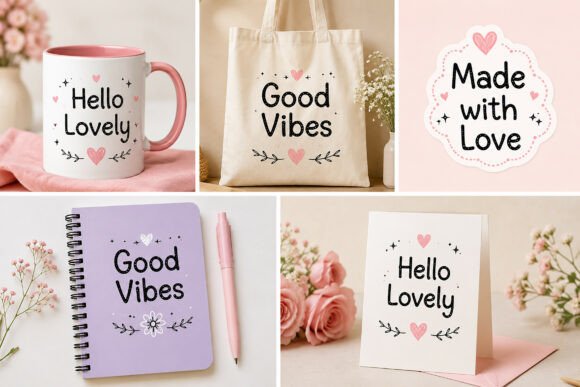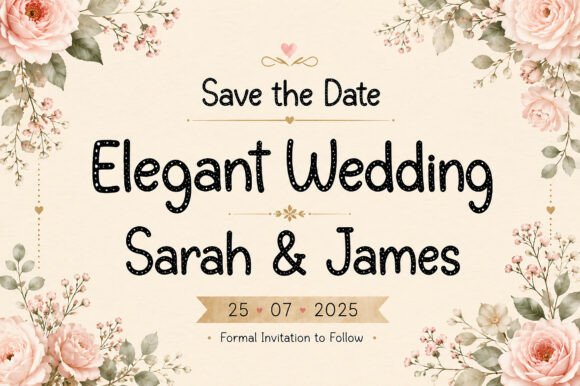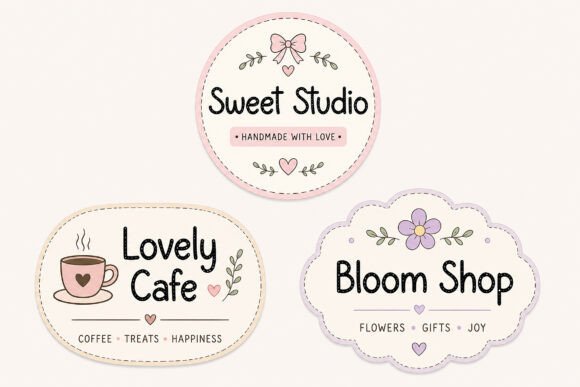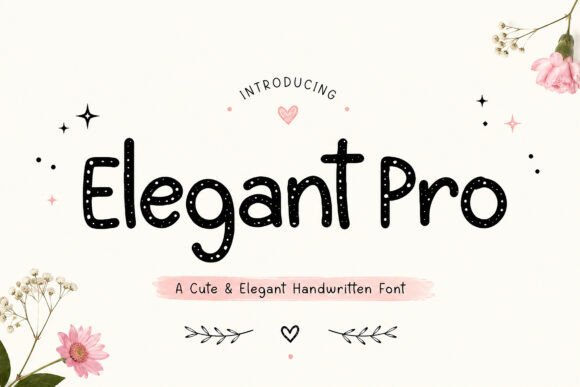
Elegant Pro Font: Elevate Your Designs with a Touch of Handwritten Charm
Are you looking for a font that can add a dash of personality to your creative projects? Look no further than Elegant Pro, a delightful handwritten display font that brings warmth, charm, and elegance to any design. With its smooth hand-drawn strokes, rounded letterforms, and unique decorative details, Elegant Pro is the perfect choice for designers and crafters seeking to create eye-catching and inviting visuals.
The Characteristics of Elegant Pro
Elegant Pro boasts a range of characteristics that make it an exceptional font for various creative applications. Its smooth hand-drawn strokes give the font a friendly and approachable feel, while its rounded letterforms add a touch of playfulness and whimsy. The unique decorative details sprinkled throughout the font add an extra layer of elegance and sophistication, making it perfect for designs that require a bit of luxury and refinement.
One of the standout features of Elegant Pro is its versatility. This font is suitable for a wide range of creative projects, from branding and logos to wedding invitations, greeting cards, and social media graphics. Whether you’re designing for a small business, creating beautiful invitations, or crafting eye-catching merchandise, Elegant Pro is the perfect choice. Its elegant and modern style makes it ideal for professional projects, while its playful and charming nature makes it perfect for personal projects.
Elegant Pro is a dream font for designers and crafters alike. Its readability and aesthetic appeal make it perfect for creating stunning visuals that capture the imagination. Designers can use Elegant Pro to create beautiful branding, logos, and marketing materials that stand out from the crowd. Crafters can use the font to create handmade products, such as stickers, stationery, children’s products, and boutique business materials, that are both unique and eye-catching.
Use Cases for Elegant Pro
Elegant Pro is perfect for a variety of creative projects, including:
- Branding and Logos: Create a lasting impression with Elegant Pro’s elegant and modern style.
- Wedding Invitations: Add a touch of romance and whimsy to your wedding invitations with Elegant Pro.
- Greeting Cards: Create beautiful and heartfelt greeting cards with Elegant Pro’s playful and charming nature.
- Social Media Graphics: Elevate your social media graphics with Elegant Pro’s smooth hand-drawn strokes and unique decorative details.
- Product Packaging: Add a touch of luxury and sophistication to your product packaging with Elegant Pro.
- Stickers and Stationery: Create eye-catching stickers and stationery with Elegant Pro’s playful and charming nature.
- Children’s Products: Design delightful children’s products, such as toys, books, and games, with Elegant Pro.
- Boutique Businesses: Create a unique and elegant brand identity for your boutique business with Elegant Pro.
- Handmade Craft Projects: Add a touch of handmade charm to your craft projects, such as jewelry, candles, and soap, with Elegant Pro.
Why Choose Elegant Pro?
So, why choose Elegant Pro over other fonts? Here are just a few reasons:
- Unique and Eye-Catching: Elegant Pro’s smooth hand-drawn strokes and unique decorative details make it a standout font that’s sure to capture attention.
- Versatile: Elegant Pro is suitable for a wide range of creative projects, from professional branding to personal craft projects.
- Readable: Despite its elegant and modern style, Elegant Pro remains highly readable, making it perfect for designs that require a clear and concise message.
- Easy to Use: Elegant Pro is easy to use and pairs well with a variety of other fonts, making it simple to incorporate into your designs.
In conclusion, Elegant Pro is a delightful handwritten display font that’s perfect for designers and crafters seeking to add a touch of personality to their creative projects. Its smooth hand-drawn strokes, rounded letterforms, and unique decorative details make it a standout font that’s both elegant and playful. With its versatility, readability, and aesthetic appeal, Elegant Pro is the perfect choice for a wide range of creative applications.